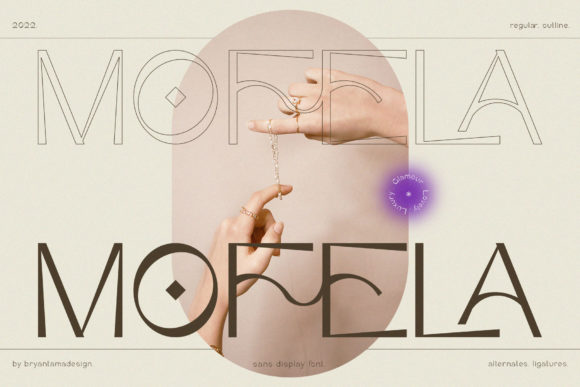
Express your creativity with Mofela Font, the perfect choice for modern websites. This captivating sans serif font exudes elegance and a touch of magic, giving your designs a distinctive personality. Inspired by luxury, Mofela features enchanting glyphs and ligatures that add a touch of whimsy to your creations.
Transform your branding, social media presence, posters, and packaging with the allure of Mofela. Its versatile style complements a wide range of aesthetics, from sophisticated to playful. Embrace the possibilities and let Mofela ignite your imagination.
With its PUA encoding, unlocking the full potential of Mofela is a breeze. Experiment effortlessly with enchanting glyphs and ligatures, adding a touch of enchantment to every project. Let Mofela elevate your designs and captivate your audience with its modern sophistication.